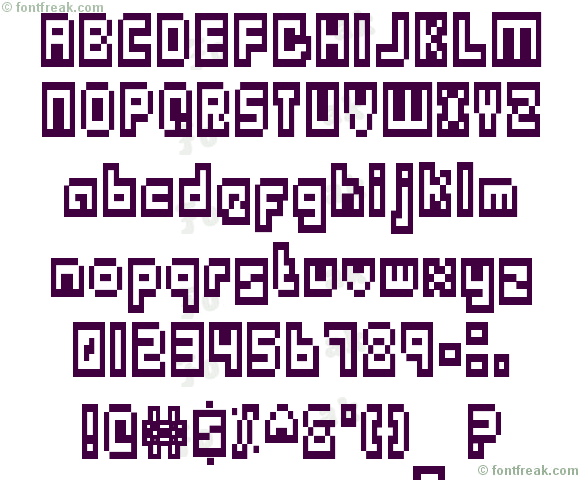
Outlands Truetype
The Outlands Truetype font by Iconian Fonts is a striking display typeface that captures attention with its unique, pixelated aesthetic. This decorative font features a bold stroke weight, giving each character a robust presence while maintaining a consistent contrast that enhances legibility. The spacing between letters is thoughtfully designed, ensuring that the font remains readable even in larger settings. Its distinctive, block-like forms evoke a retro gaming feel, making it a perfect choice for projects that require a touch of nostalgia or whimsy.
Ideal use cases for the Outlands Truetype font include video game branding, where its playful style can resonate with gamers. It also shines in movie posters, particularly for action or sci-fi genres, where its boldness can convey excitement and adventure. Additionally, this font makes an excellent choice for themed restaurant menus, especially those that embrace a quirky or adventurous dining experience. Graphic designers can also leverage this font in event promotions, such as arcade-themed parties or retro festivals, where the font's unique design complements the overall theme.
Targeted towards graphic designers, small business owners, and content creators, the Outlands Truetype font offers a versatile tool for those looking to make an impression. Whether you are crafting a logo, designing merchandise, or creating digital content, this font provides an eye-catching option that stands out from the crowd.
What sets the Outlands Truetype font apart is its ability to blend fun with functionality. Its bold, decorative style not only draws the eye but also serves a practical purpose in enhancing communication. For those seeking a distinctive typeface for their projects, the Outlands Truetype font free download is a valuable resource that brings unique character and flair to any design.